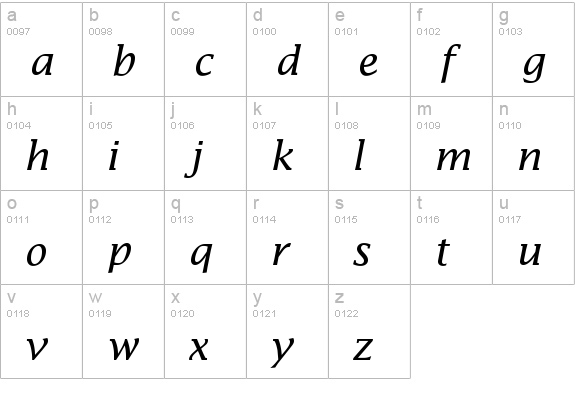
Lucida Math Std Italic Font Details
Lucida Math Std Italic is a distinctive, italic variant in the Lucida typeface family \xE2\x80\x94 well suited to design and typography projects.
Lucida Math Std Italic is a sophisticated and elegant font designed for mathematical expressions and equations. Its slanted design adds a touch of dynamism and fluidity to the text, making it perfect for academic papers, technical documents, and professional presentations. The italic style of Lucida Math Std enhances the readability and visual appeal of mathematical content, allowing it to stand out on the page. The font features a clean and modern aesthetic, with precise letterforms that ensure clarity and legibility even at small sizes. Each character is meticulously crafted to maintain consistency and balance, resulting in a harmonious overall appearance. Lucida Math Std Italic strikes the ideal balance between tradition and innovation, making it a versatile choice for a variety of design projects. Best of all, Lucida Math Std Italic is available for free download at FontsMarket.com. This means you can easily access and use this high-quality font in your own work without any cost. Whether you're a student, educator, or professional designer, Lucida Math Std Italic offers a valuable resource for enhancing your mathematical and technical communications. Download it today and elevate your typography game with this exceptional typeface.